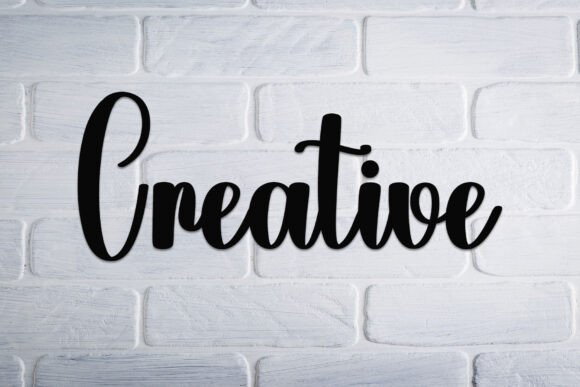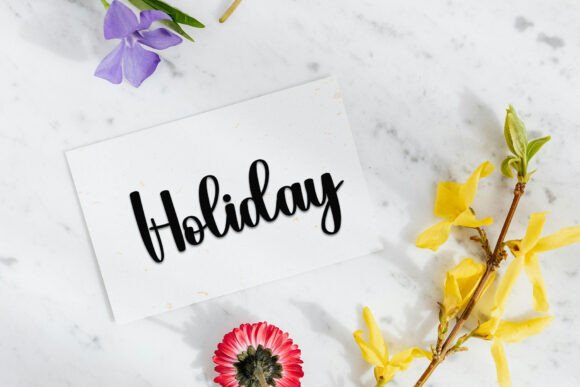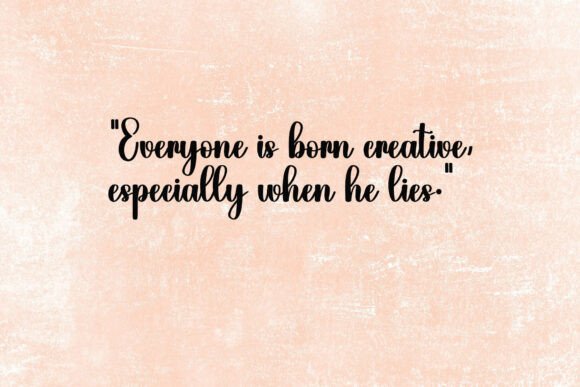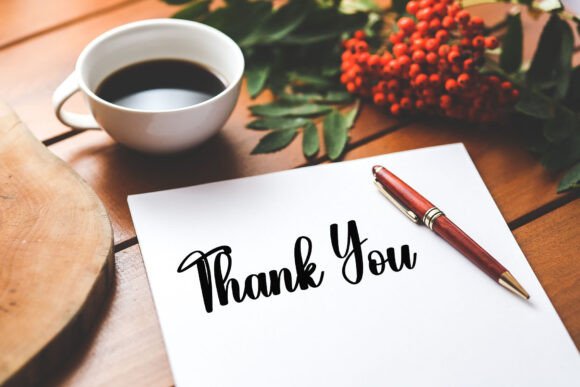
Introducing Ephemera Font: The Sweet and Elegant Handwritten Font for Your Design Needs
Are you looking for a font that can add a touch of elegance and romance to your designs? Look no further than Ephemera Font, a beautiful and cursive handwritten font that is perfect for a variety of design projects. In this article, we’ll take a closer look at Ephemera Font, its features, and how you can use it to elevate your designs.
What is Ephemera Font?
Ephemera Font is a sweet and cursive handwritten font that is designed to add a touch of joy and romance to your designs. Its gentle and flowing curves make it perfect for creating elegant and sophisticated designs that are sure to impress. Whether you’re working on a branding project, designing a logo, or creating wedding materials, Ephemera Font is the perfect choice.
Features of Ephemera Font
Ephemera Font has several features that make it a versatile and elegant font for your design needs. Some of its key features include:
- Sweet and Cursive Handwritten Style: Ephemera Font has a beautiful, cursive handwritten style that is perfect for creating elegant and sophisticated designs.
- Gentle and Flowing Curves: The font’s gentle and flowing curves make it perfect for creating designs that are both elegant and casual.
- Versatile and Adaptable: Ephemera Font is perfect for a variety of design projects, including branding, logos, wedding materials, greeting cards, fashion, lookbooks, and marketing promotions.
Use Cases for Ephemera Font
Ephemera Font is a versatile font that can be used for a wide range of design projects. Here are some use cases where Ephemera Font is particularly effective:
- Branding and Logo Design: Ephemera Font is perfect for creating elegant and sophisticated brand identities and logos.
- Wedding Materials: The font’s romantic and elegant style makes it perfect for creating wedding invitations, programs, and other materials.
- Greeting Cards and Stationery: Ephemera Font is perfect for creating beautiful and elegant greeting cards and stationery.
- Fashion and Lookbooks: The font’s elegant and sophisticated style makes it perfect for creating fashion lookbooks, catalogs, and other marketing materials.
- Marketing Promotions: Ephemera Font can be used to create elegant and sophisticated marketing materials, including brochures, flyers, and posters.
Why Choose Ephemera Font?
There are many fonts available that can add a touch of elegance and romance to your designs. So, why choose Ephemera Font? Here are a few reasons:
- Unique and Elegant Style: Ephemera Font has a unique and elegant style that is sure to impress.
- Versatile and Adaptable: The font is perfect for a wide range of design projects, from branding and logos to wedding materials and greeting cards.
- Easy to Read and Understand: Ephemera Font is easy to read and understand, making it perfect for designs where clarity is important.
Tips for Using Ephemera Font
Here are a few tips for using Ephemera Font in your designs:
- Use it with a Simple Background: Ephemera Font looks best with a simple background that doesn’t compete with the font’s elegant style.
- Experiment with Different Sizes and Colors: Try experimenting with different sizes and colors to find the perfect combination for your design.
- Pair it with Other Fonts: Ephemera Font can be paired with other fonts to create a unique and interesting design.
Ephemera Font is a beautiful and elegant handwritten font that is perfect for a variety of design projects. Its sweet and cursive style, gentle and flowing curves, and versatile and adaptable nature make it a great choice for designers and crafters. Whether you’re working on a branding project, designing a logo, or creating wedding materials, Ephemera Font is sure to add a touch of elegance and romance to your designs.
So, if you’re looking for a font that can help you create elegant and sophisticated designs, look no further than Ephemera Font. With its unique and elegant style, versatility, and ease of use, Ephemera Font is the perfect choice for your design needs.